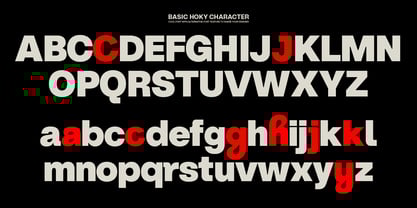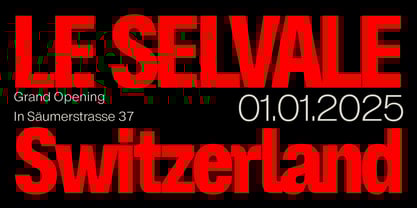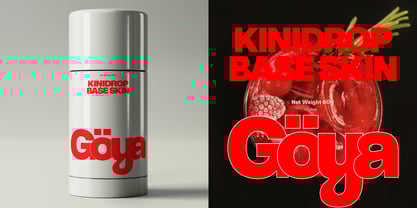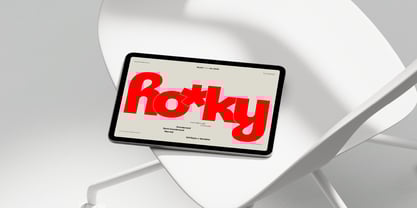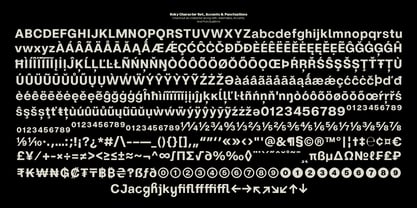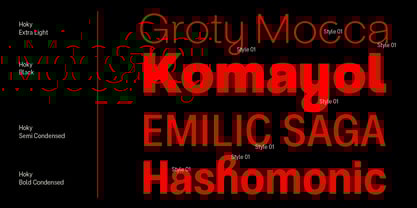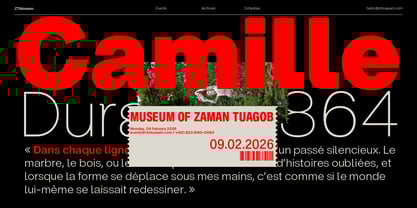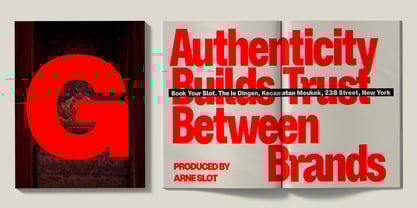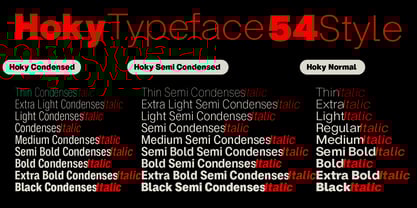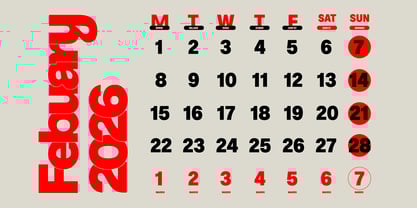
ZT Hoky
by Zelow Type
The ZT Hoky Font Family was designed by Khairun Nas and published by Zelow Type. ZT Hoky contains 56 styles and family package options. More about this family
ZT Hoky is a modern grotesk typeface built with high visual energy, inspired by contemporary poster culture, bold editorial layouts, and assertive branding aesthetics. Every letterform is designed with dense structure, rhythmic geometry, and striking visual weight—resulting in a typeface that is powerful, stable, and instantly recognizable even from a distance. Developed as a compact yet versatile typographic system, ZT Hoky comes in four primary proportions: Condensed, Semi Condensed, Normal, and Italic. These width variations provide strong flexibility for designers—perfect for constructing tight poster compositions, bold typographic hierarchies, and impactful headlines that dominate the page. 54 Style + Italic 2 Variable 526 glyphs and 8 Character Unique Alternate Condensed, Semi Condensed, and Normal 9 Font Weights: Thin, Extra Light, Light, Regular, Medium, Semi-Bold, Bold, Extra Bold and Black ZT Hoky is built to deliver maximum presence—strong, modern, and uncompromising. It is ideal for poster design, visual campaigns, magazine layouts, museum identities, packaging, and any project that demands a bold typographic voice. I hope you have fun using ZT Hoky. Thanks for using this font ~ Zelowtype
Designers: Khairun Nas
Foundry: Zelow Type